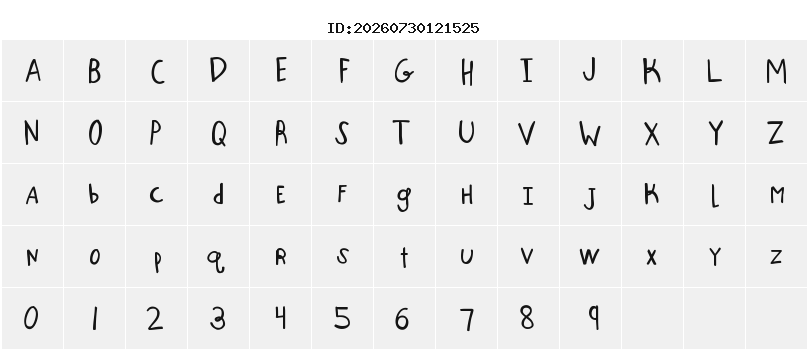
KBOneBigScrape Preview
• Font Name: KBOneBigScrape
• Full Font Name: KBOneBigScrape
About KBOneBigScrape.ttf
KBOneBigScrape.ttf is a modern, elegant sans-serif font designed for ultimate readability and visual harmony. Perfect for branding, headlines, web design, and print materials.